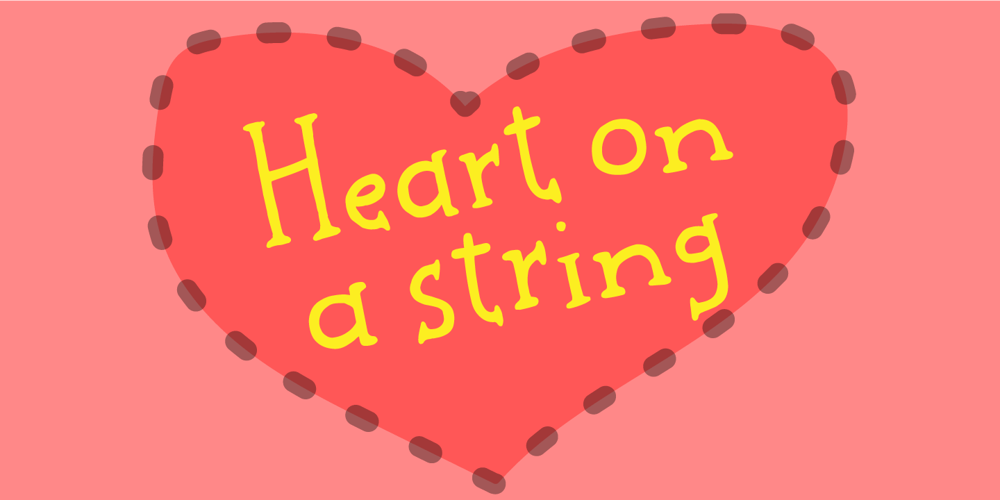
Heart on a string Font Family was designed by Jakob Fischer and published by PizzaDude.dk. Heart on a string contains 2 styles and family package options. “Heart on a string” is from a song by Paul McCartney, and is one of his romantic ones. I tried to do the same by creating a font that has the same romantic feeling.